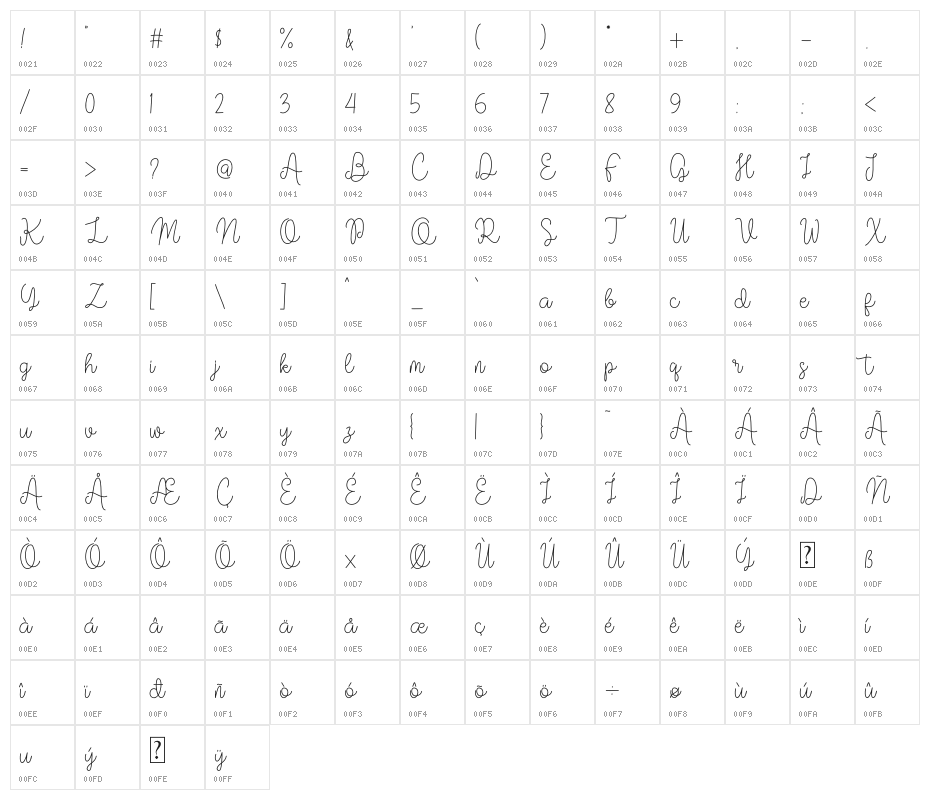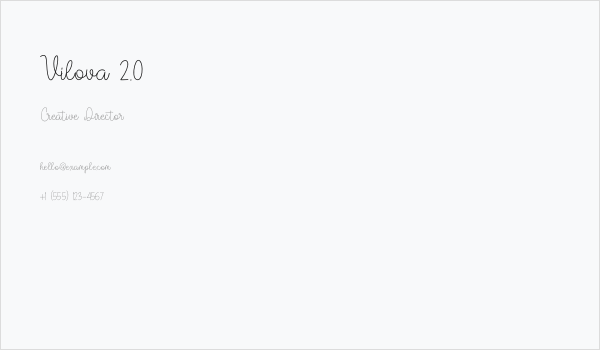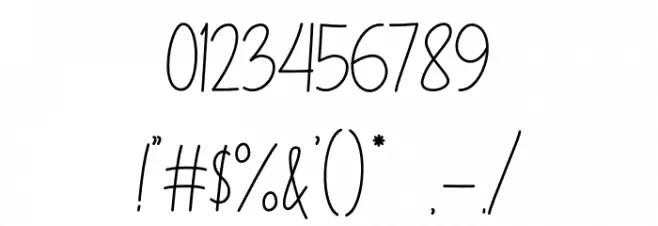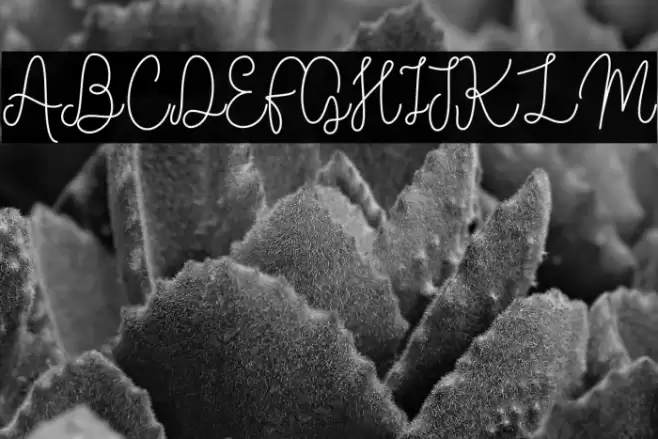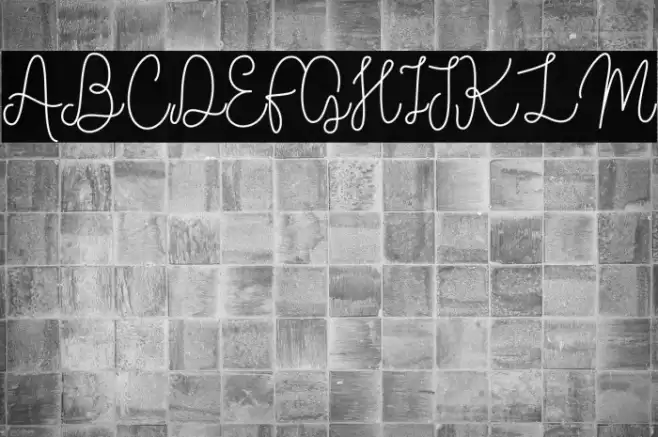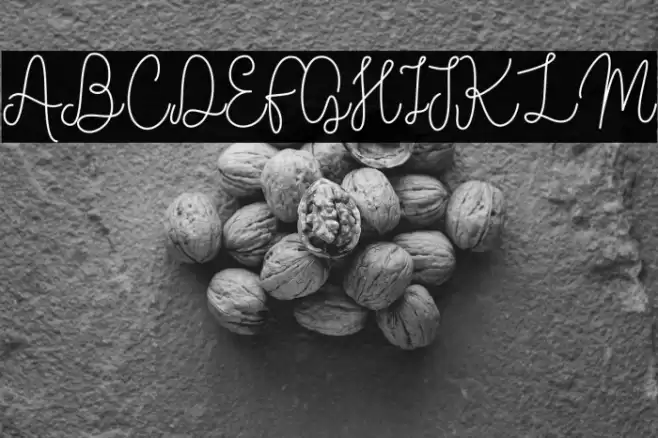
Vilova 2.0 Font
This font features a delicate and flowing script style, characterized by its elegant and continuous strokes that mimic the fluidity of handwriting. The uppercase letters are slightly more ornate, with loops and curves that add a touch of sophistication. The lowercase letters maintain a consistent flow, enhancing readability while preserving the script's artistic flair. Numbers and special characters are crafted with the same attention to detail, ensuring a cohesive look across all elements. This font is ideal for projects that require a personal and elegant touch, such as invitations, greeting cards, and branding materials.
| Use Case | Headlines, Invitations, Greeting cards |
| Proposed Projects | Ideal for wedding invitations, greeting cards, personal branding, and elegant stationery. |